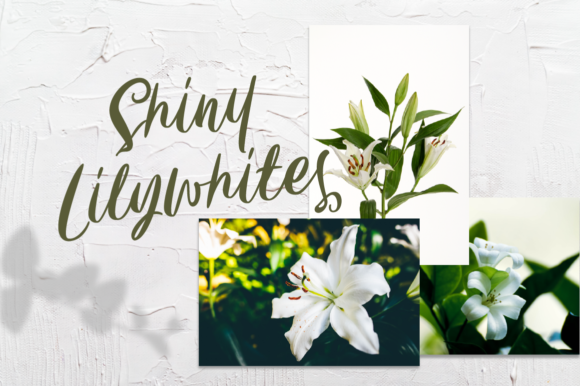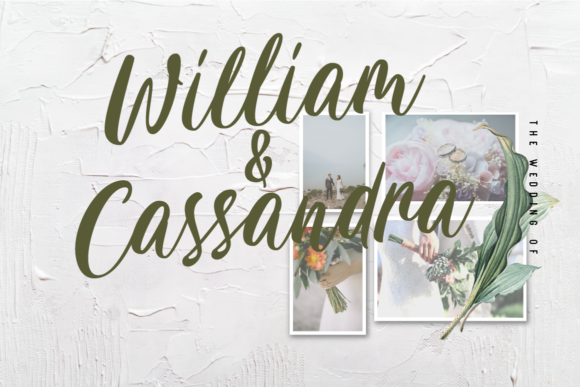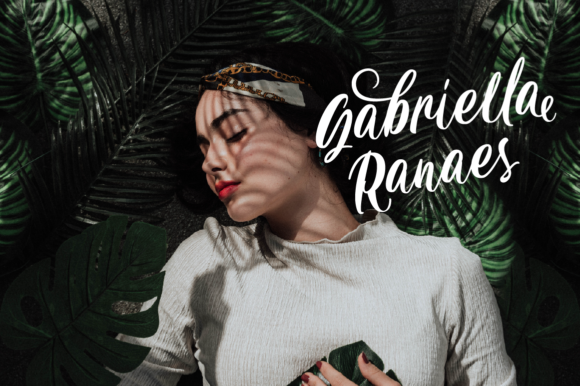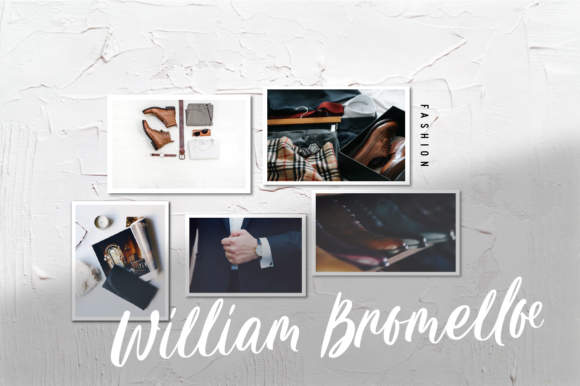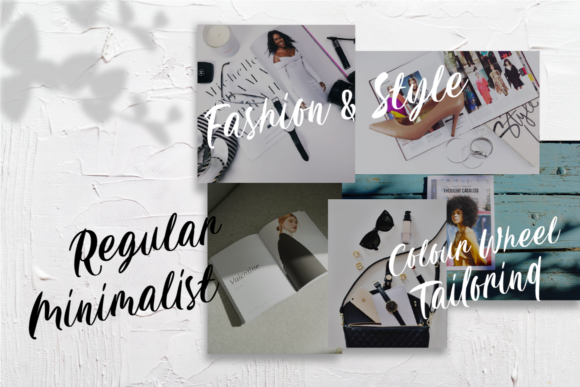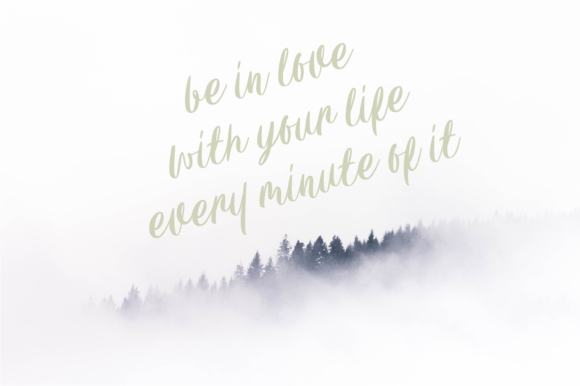
Introducing Carily Font: The Epitome of Modern Elegance and Style
Carily Font is a modern and fresh handwritten font that exudes a cool vibe, making it a perfect addition to any design project. This beautiful font seamlessly combines elegance, charm, and style, rendering it a versatile choice for designers and crafters alike. In this article, we’ll dive into the world of Carily Font, exploring its features, uses, and the magic it can bring to your creative endeavors.
The Birth of Carily Font
Carily Font is a product of meticulous craftsmanship, designed to cater to the needs of modern designers who seek a fresh and elegant look for their projects. Its creation involved a deep understanding of typography and a passion for producing a font that stands out in the digital age. Carily Font is not just a typeface; it’s an expression of style and sophistication.
Key Features of Carily Font
- Modern and Fresh Design: Carily Font boasts a contemporary design that feels fresh and current. Its modern appeal makes it perfect for projects that demand a cutting-edge look.
- Handwritten with a Cool Vibe: The font’s handwritten nature gives it a personal and approachable feel, while its cool vibe ensures it remains trendy and appealing.
- Elegance, Charm, and Style: What sets Carily Font apart is its unique blend of elegance, charm, and style. It’s designed to add a touch of sophistication to any project without compromising on personality.
- Versatility: Carily Font is incredibly versatile, making it suitable for a wide range of applications, from branding and advertising to packaging and digital media.
Uses of Carily Font
Carily Font’s adaptability makes it a valuable asset for various design projects. Here are some of the best ways to utilize this stunning font:
- Branding and Logos: Create memorable brand identities with Carily Font. Its elegant and modern appeal makes it perfect for logos, business cards, and brand guidelines.
- Digital Media: Enhance your digital content with Carily Font. It’s ideal for blog posts, social media graphics, and website designs, adding a touch of personality to your online presence.
- Advertising and Marketing: Stand out in the crowded advertising space with Carily Font. Use it for ad banners, flyers, and brochures to capture attention and convey your message in style.
- Crafting and DIY Projects: For crafters and DIY enthusiasts, Carily Font can add a professional touch to handmade products, such as labels, cards, and packaging.
Tips for Using Carily Font
To maximize the potential of Carily Font, consider the following tips:
- Pair it Wisely: Combine Carily Font with complementary fonts to create visual interest. A sans-serif font can provide a nice contrast to Carily’s elegant script.
- Adjust Letter Spacing: For better readability, adjust the letter spacing according to the project’s requirements. This can enhance the overall look and feel of your design.
- Experiment with Colors: Don’t be afraid to experiment with different colors. Carily Font can look stunning in bold colors or subtle gradients, depending on the desired effect.
Carily Font is a game-changer for designers and crafters looking for a modern, elegant, and versatile typeface. Its unique blend of elegance, charm, and style makes it an excellent choice for a wide range of projects. By incorporating Carily Font into your designs, you’re not just adding a font; you’re infusing your work with a touch of sophistication and personality. So, go ahead and explore the endless possibilities that Carily Font has to offer. Elevate your designs, make them more engaging, and let Carily Font be the voice that brings your creative visions to life.